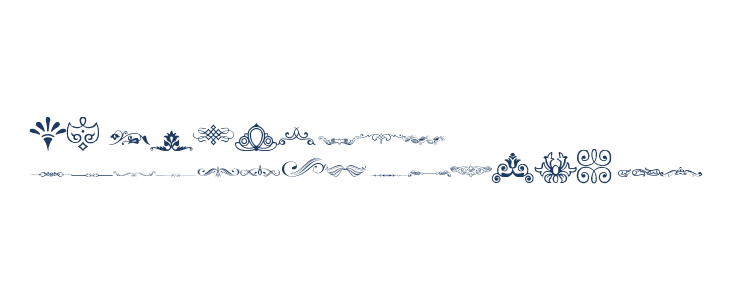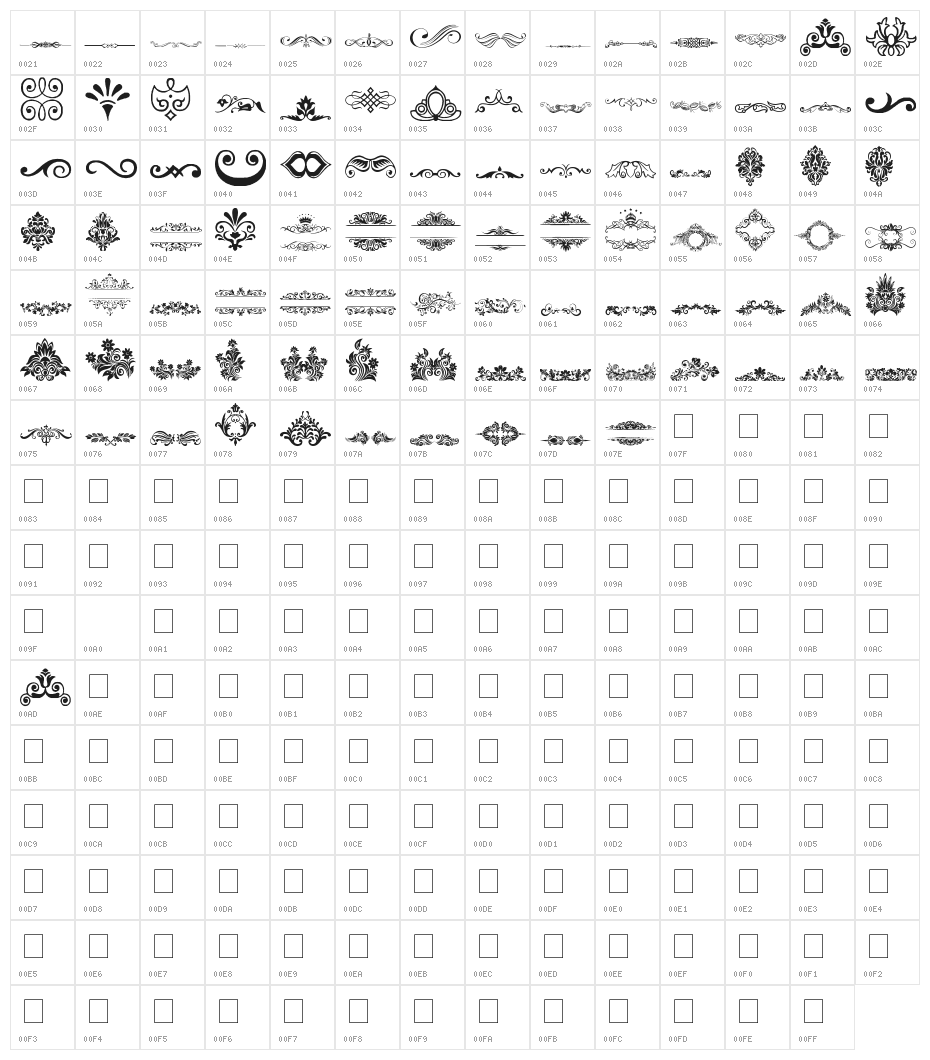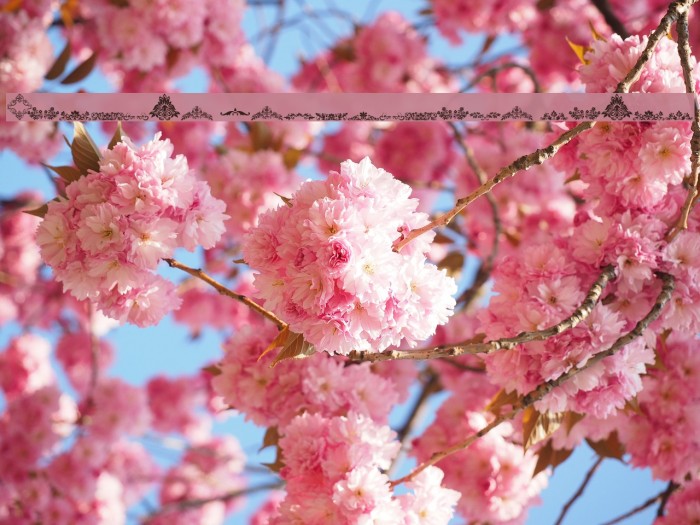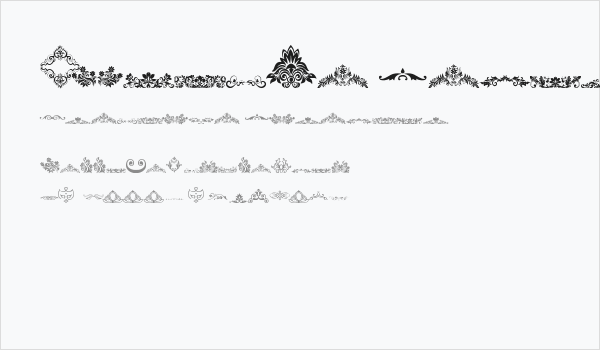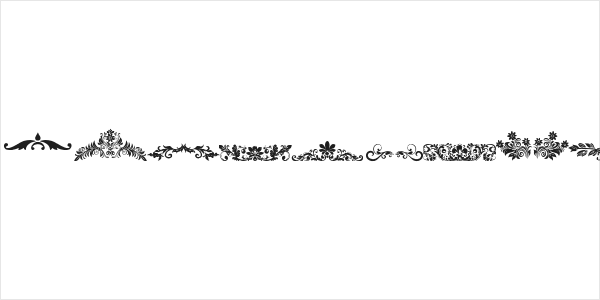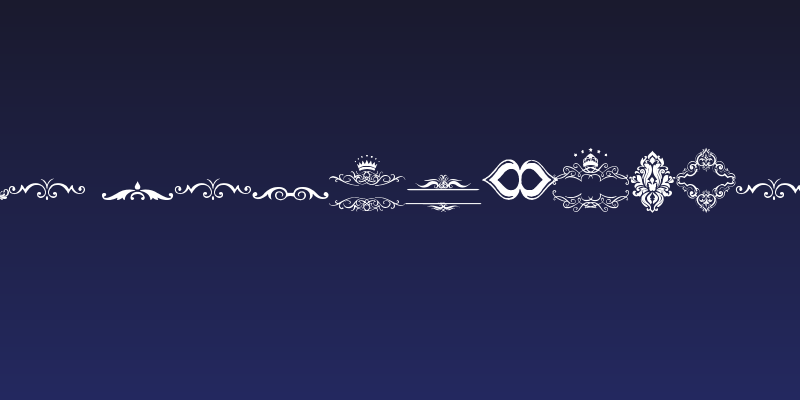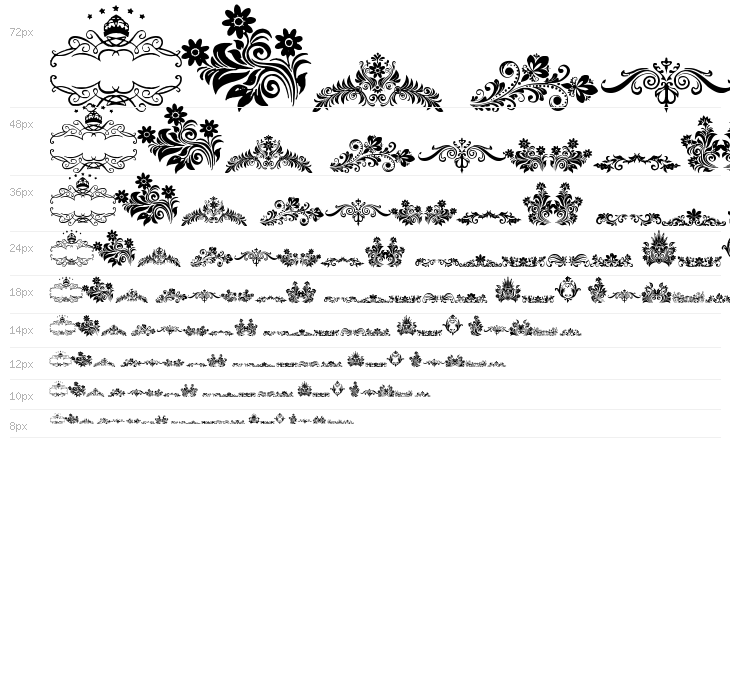
Vintage Decorative signs Font
Vintage Decorative signs Description
A collection of highly decorative, vintage-inspired ornamental elements and flourishes, featuring intricate swirls, floral motifs, and symmetrical designs, reminiscent of classic signage and Victorian embellishments.
| Overall Style | Vintage, Decorative, Ornamental |
| Use Case | Borders, Dividers, Decorative accents, Logos, Invitations |
| Proposed Projects | Wedding invitations, vintage signage, certificates, restaurant menus, branding for luxury products, decorative borders for print and digital media. |